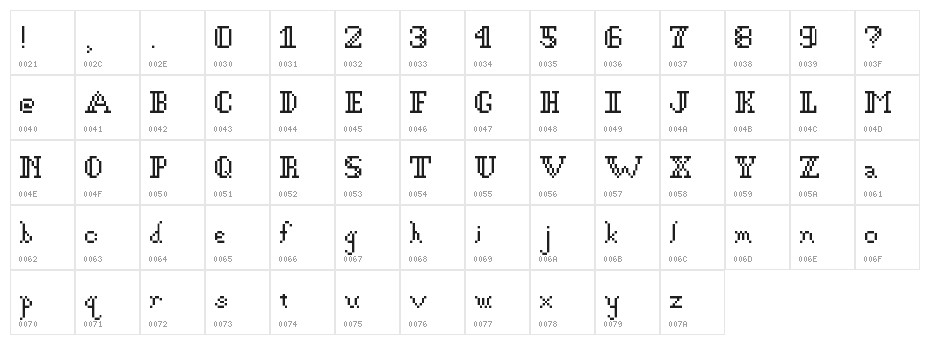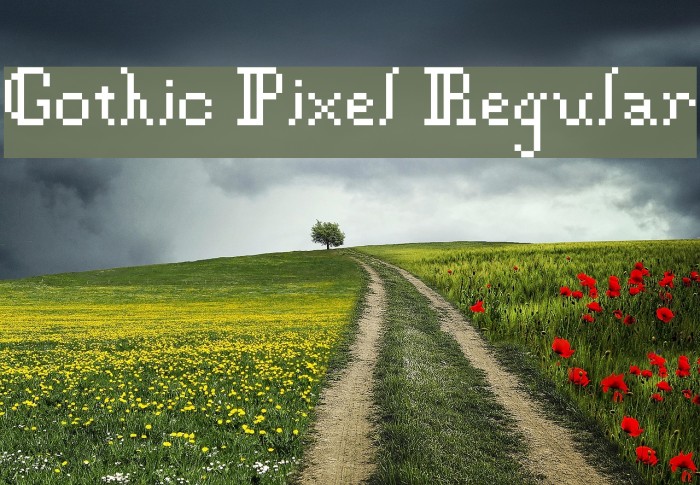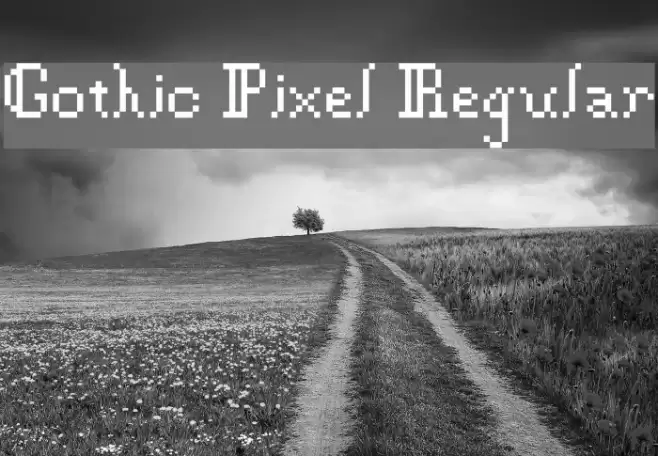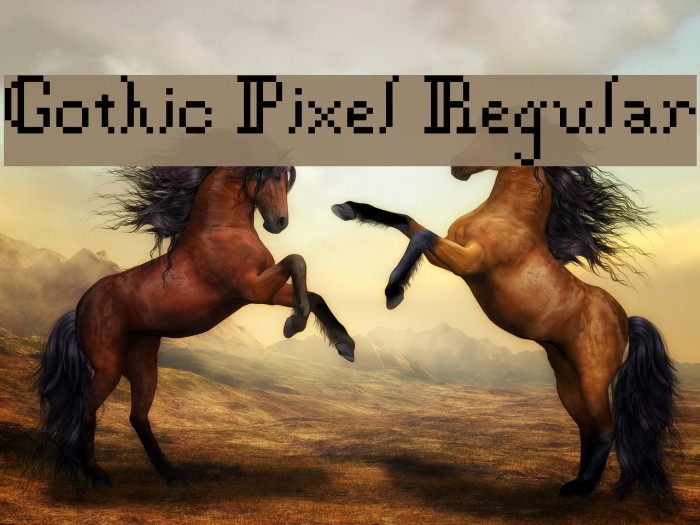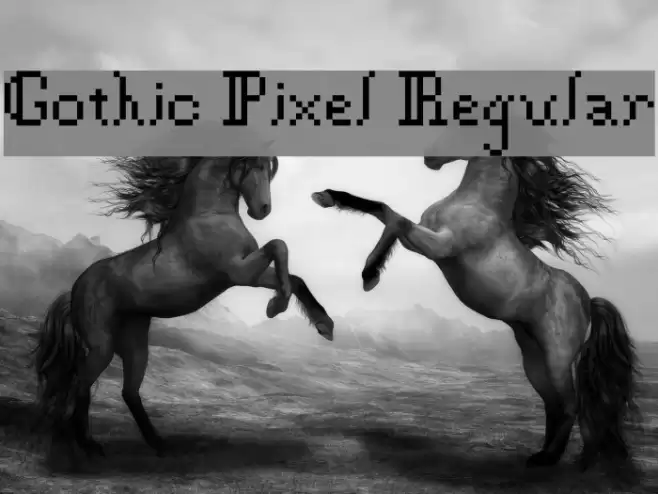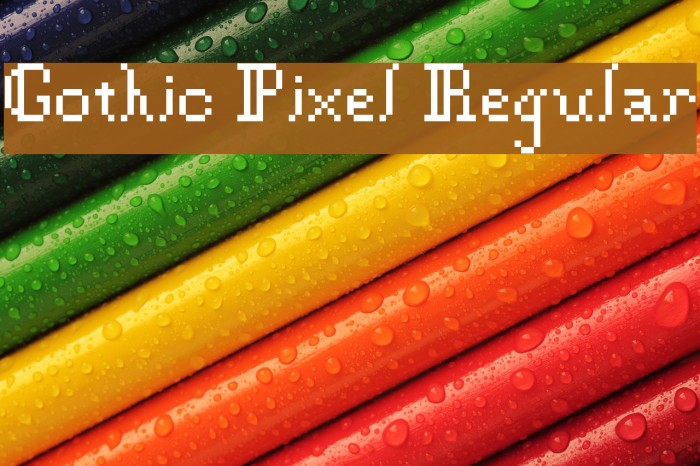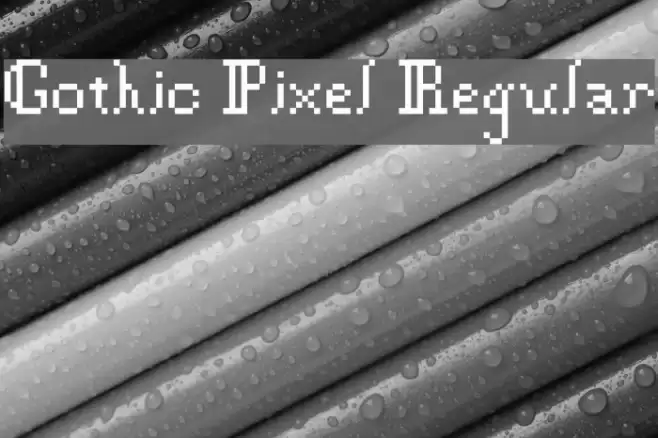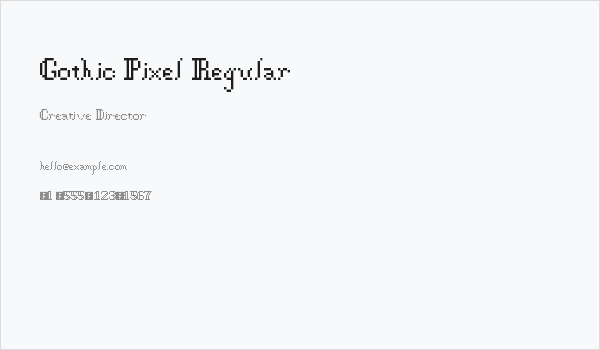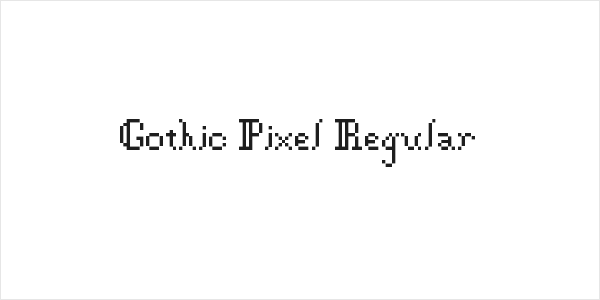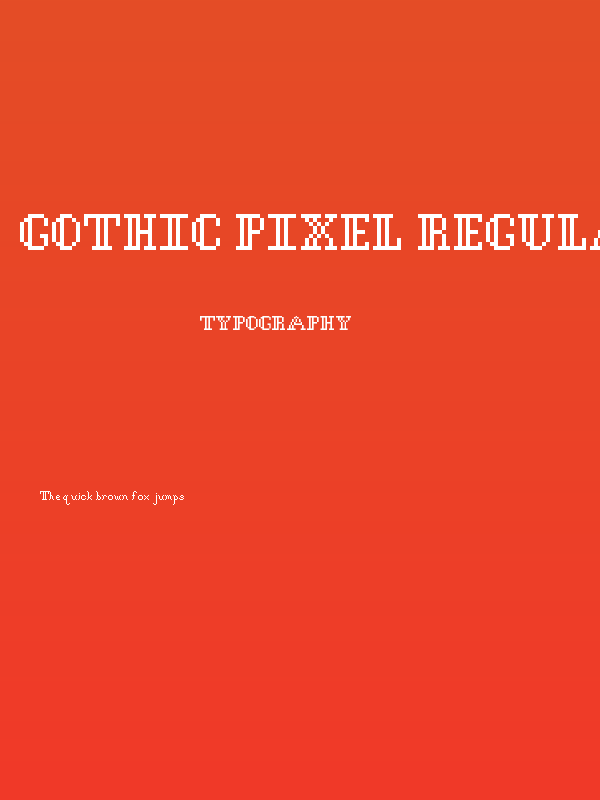
Gothic Pixel Regular Font
Gothic Pixel Regular Description
This font features a pixelated, Gothic-inspired design that combines the traditional elements of Gothic typefaces with a modern, digital twist. The uppercase letters are bold and structured, with sharp angles and a consistent pixel grid pattern that gives them a distinct, blocky appearance. The lowercase letters maintain a similar style but are slightly more rounded, providing a nice contrast to the uppercase. The numerals are clear and easy to read, following the same pixelated style. Special characters are included, maintaining the overall aesthetic. This font is perfect for retro-themed projects or digital art that requires a unique, eye-catching typeface.
| Use Case | Logos, Headlines, Digital Art |
| Proposed Projects | Ideal for retro video games, digital art, and graphic design projects that require a unique, eye-catching typeface. |